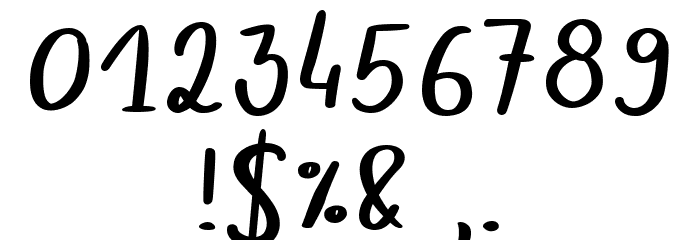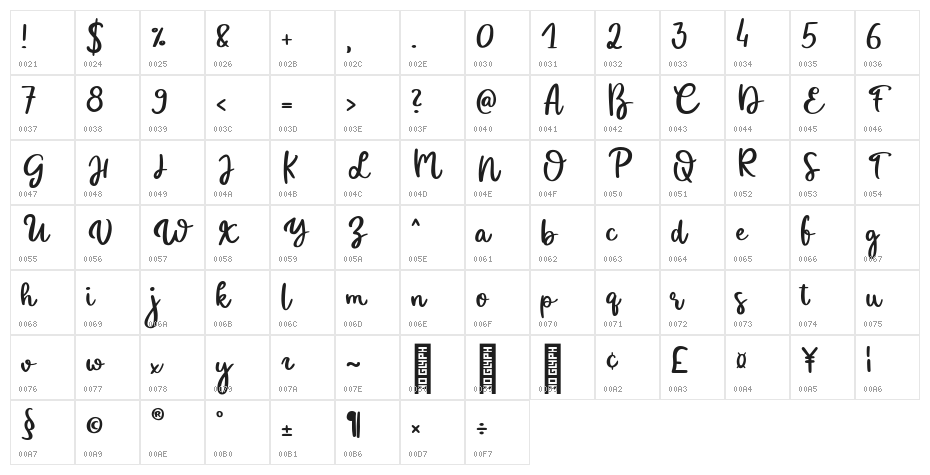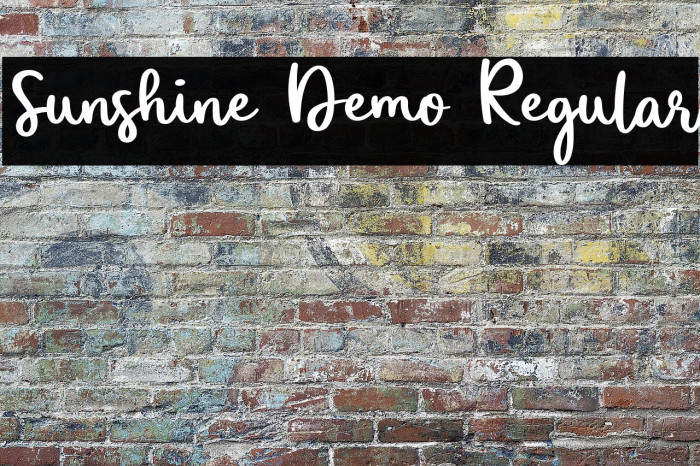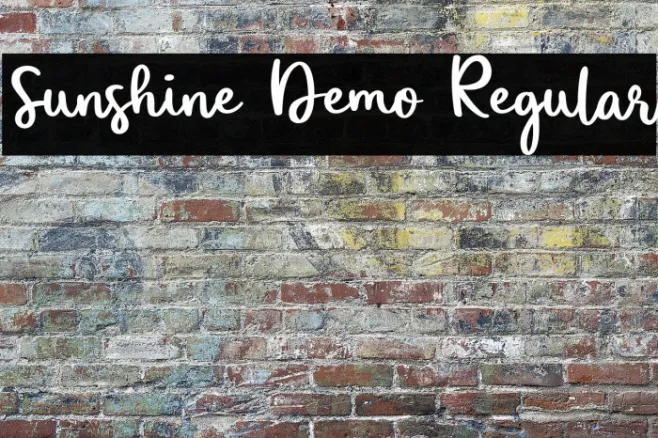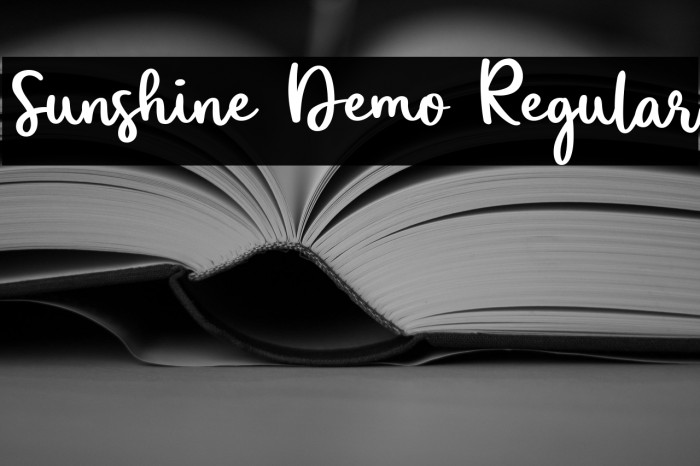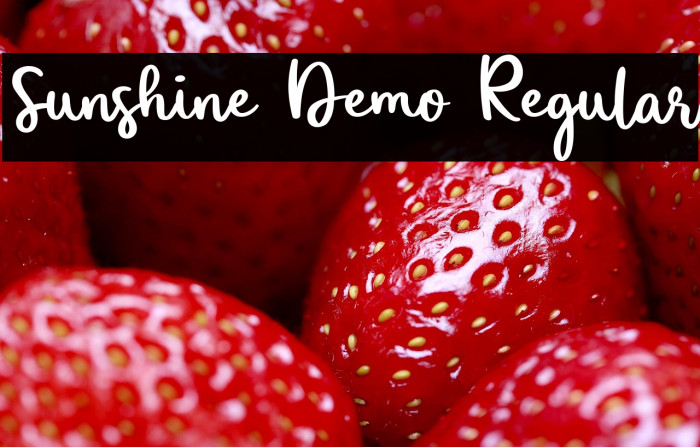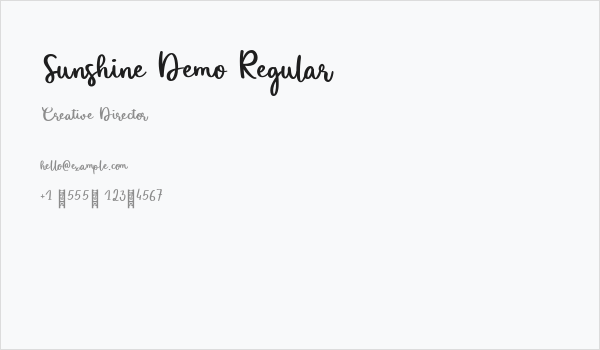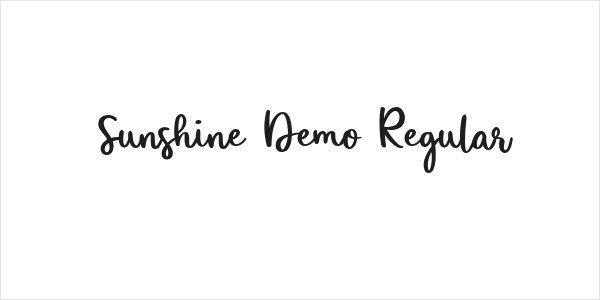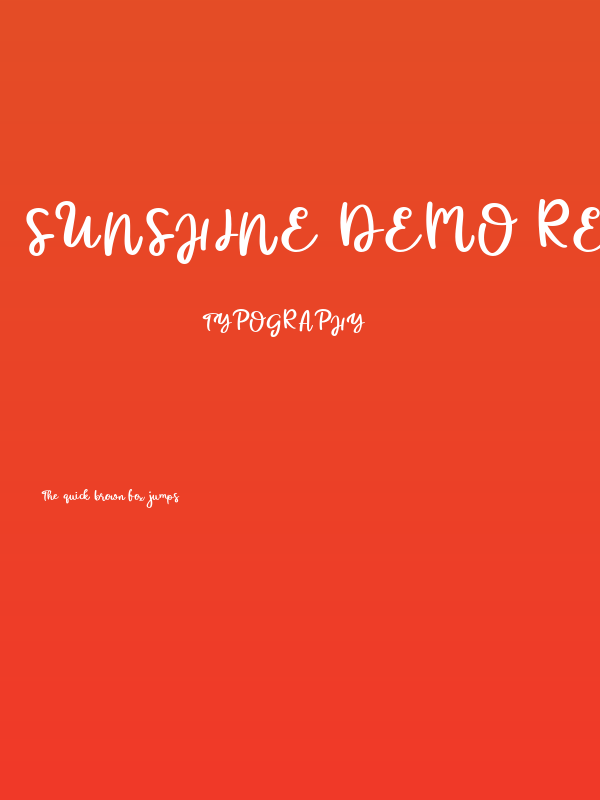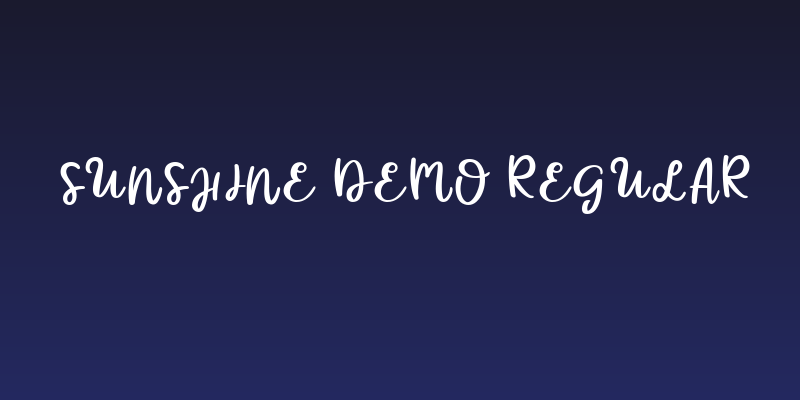
Sunshine Demo Regular Font
Sunshine Demo Regular Description
This font features a playful and flowing script style, characterized by its smooth, connected strokes and a handwritten appearance. The uppercase letters are bold and slightly whimsical, with a consistent stroke width that adds to its casual charm. The lowercase letters maintain a similar style, with some letters having unique loops and curls that enhance the font's personality. The numerals are clear and easy to read, while the special characters blend seamlessly with the overall design. This font exudes a friendly and approachable vibe, making it ideal for projects that require a personal touch.
| Proposed Projects | Ideal for greeting cards, invitations, personal branding, and social media graphics. |